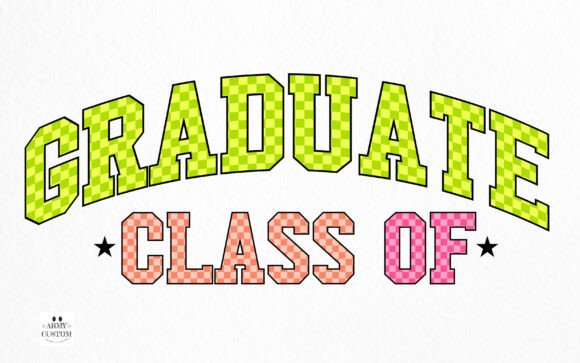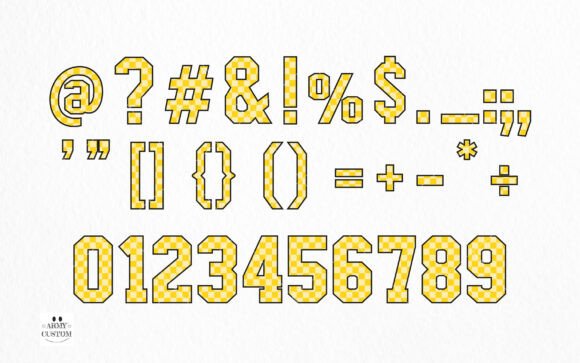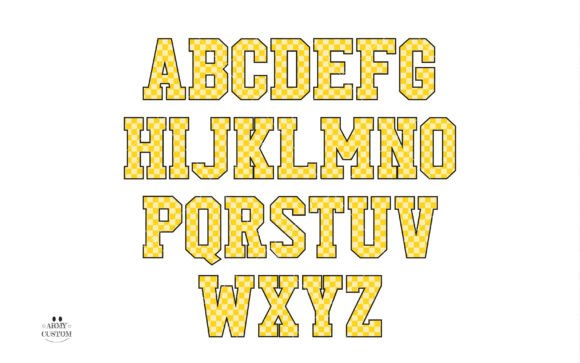
Checkered Back to School Font
Introducing “Back to School” – as enchanting as the nostalgia of free-spirited childhood days. This font celebrates the beauty of imperfections with a stunning checkered pattern, commonly referred to as a checkered alphabet. Stimulating creativity and capturing the imagination, the font is clearly cradled in uniqueness, making it a distinctive embodiment of a designer’s vision. Imagine using ‘Back to School’ to transform your designs, crafting brilliant ideas and exuding an alluring vivacity that is sure to make a lasting impact! Step right back into the enjoyable classroom days with the alluring checkered magic of the remarkable ‘Back to School’ font.